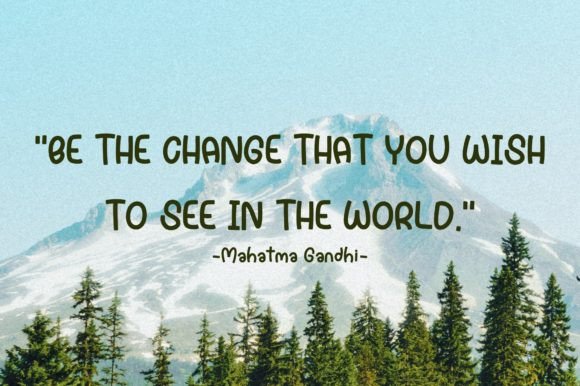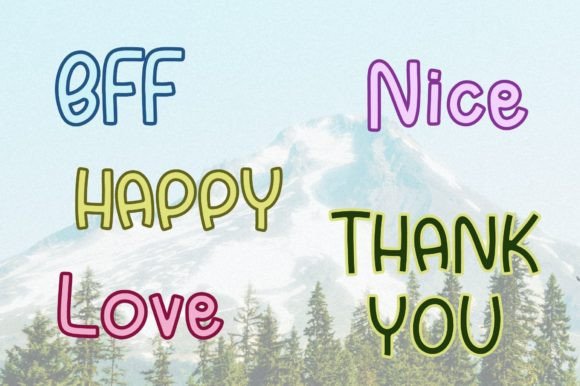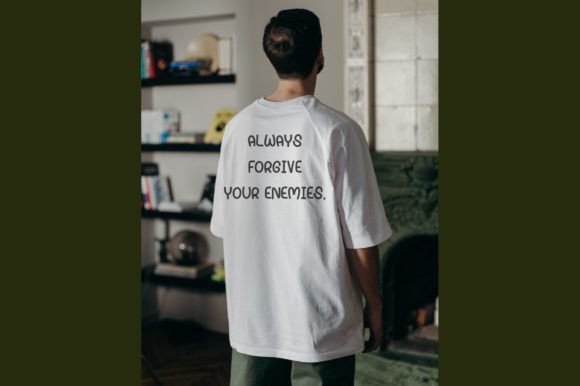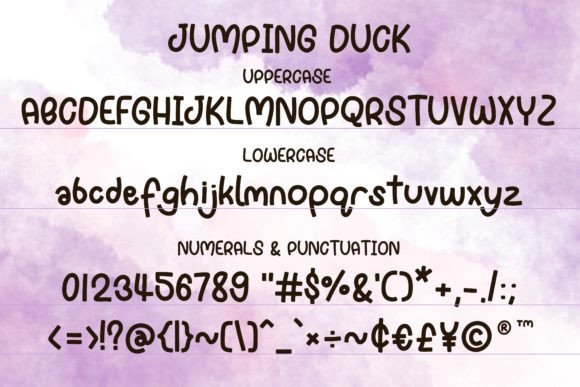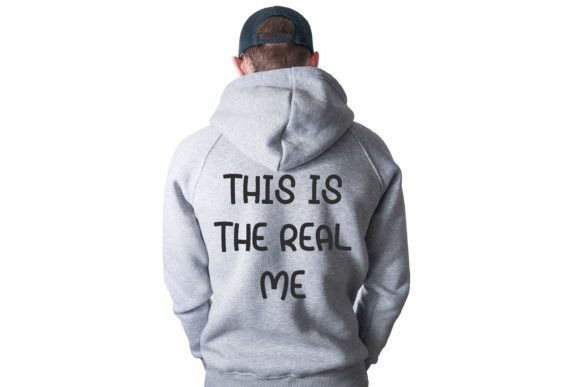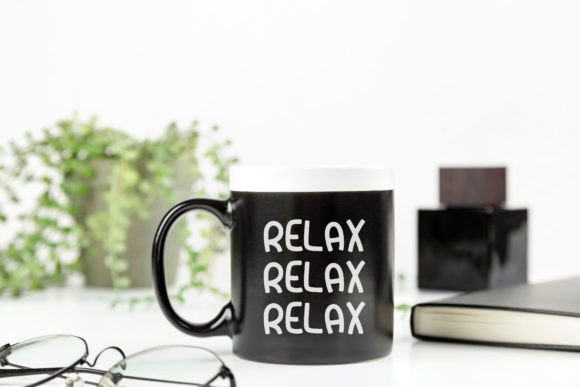
Introduction to Jumping Duck Font
Have you ever stared at a blank canvas, waiting for inspiration to strike? That’s exactly where I was when I stumbled upon the Jumping Duck Font. Its playful, modern design instantly sparked an idea for a creative project. As designers, we’re always on the lookout for the perfect font to bring our ideas to life, and Jumping Duck Font is definitely a valuable addition to any design resource.
With its high-quality design and PUA encoded features, Jumping Duck Font is perfect for creating quotes, logos, or any other lettering project. Plus, with a transparent background, you can easily layer it over any image or design element. Whether you’re a seasoned designer or just starting out, Jumping Duck Font is a free download that’s sure to make your creative project stand out.
Key Features of Jumping Duck Font
- High-quality vector design with a transparent background, ideal for creative projects that require a clean and minimalist look.
- Designed with a unique and playful style, featuring a jumping duck character that adds a touch of whimsy to any design.
- Perfect for use in a variety of creative projects, including illustrations, graphics, and typography, thanks to its versatility and high-quality design.
Honest Review: Jumping Duck Font
I recently had the opportunity to work with the Jumping Duck Font and I must say, it was a unique experience. As a designer, I appreciate high-quality fonts that can add an extra layer of creativity to my projects.
One of the things that stood out to me about the Jumping Duck Font was its versatility. The font is available for free download, making it a great resource for designers who are working on a budget. The transparent background also allows for seamless integration with other design elements.
Here are some of the things that work well with the Jumping Duck Font:
- High-quality design: The font is crisp and clean, making it perfect for digital projects.
- Transparent background: The transparent background allows for seamless integration with other design elements.
- Limited style options: The font only comes in a single style, which may not be suitable for all design projects.
- Not ideal for large text: The font may not be the best choice for large text, as it can become difficult to read.
Overall, I would give the Jumping Duck Font 3.5 out of 5 stars. While it has its limitations, it is a great resource for designers who are working on a creative project and need a unique font.
Tips for Getting the Most Out of Jumping Duck Font
To get the most out of the Jumping Duck Font, be sure to use it in a creative project where its unique design can shine. You can also experiment with different font sizes and styles to add visual interest to your design.
Common Use Cases for Jumping Duck Font
The Jumping Duck Font is commonly used in a variety of creative projects, including logos, branding, and marketing materials. Its high-quality design and transparent background make it a popular choice for designers looking to add a touch of elegance to their work.